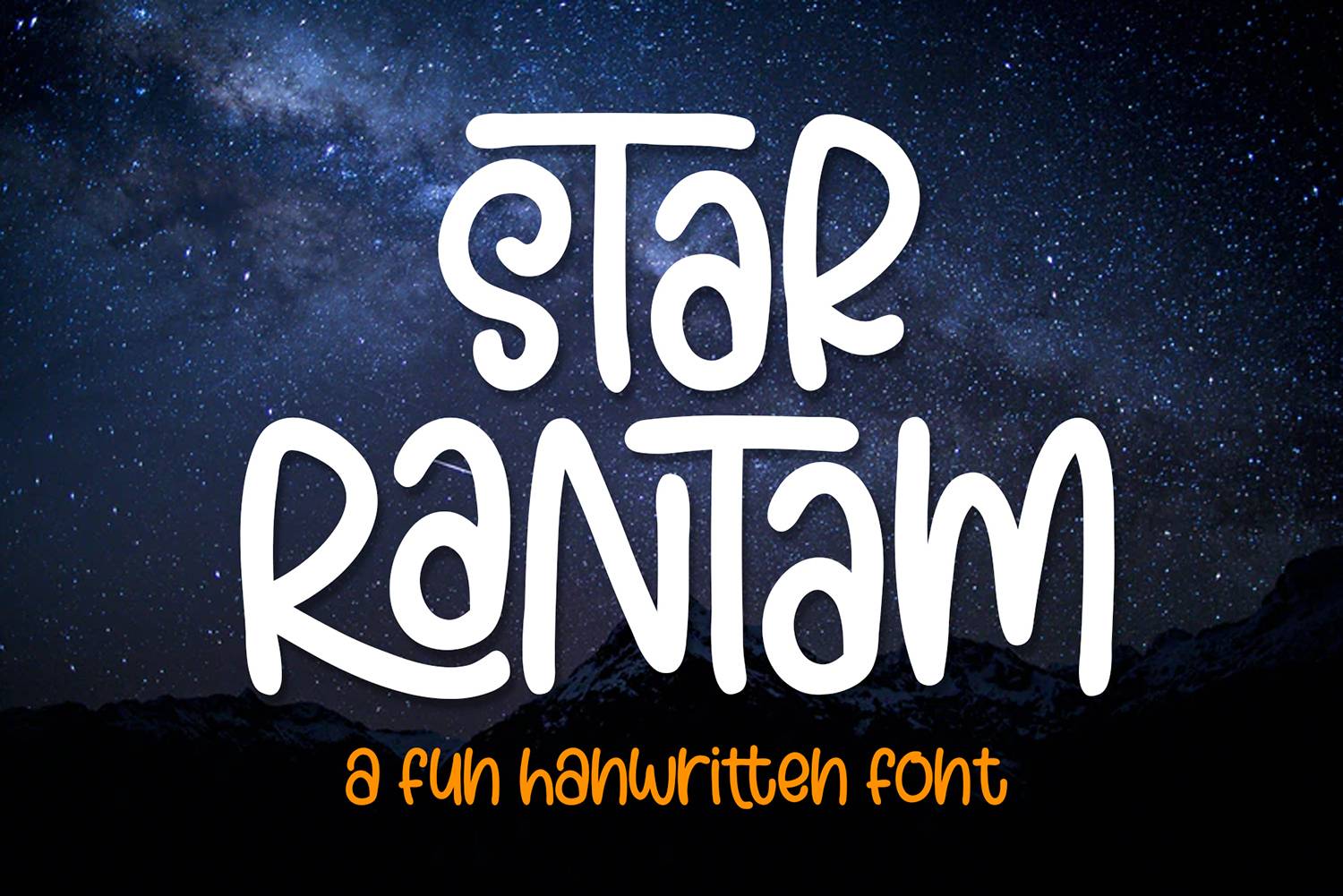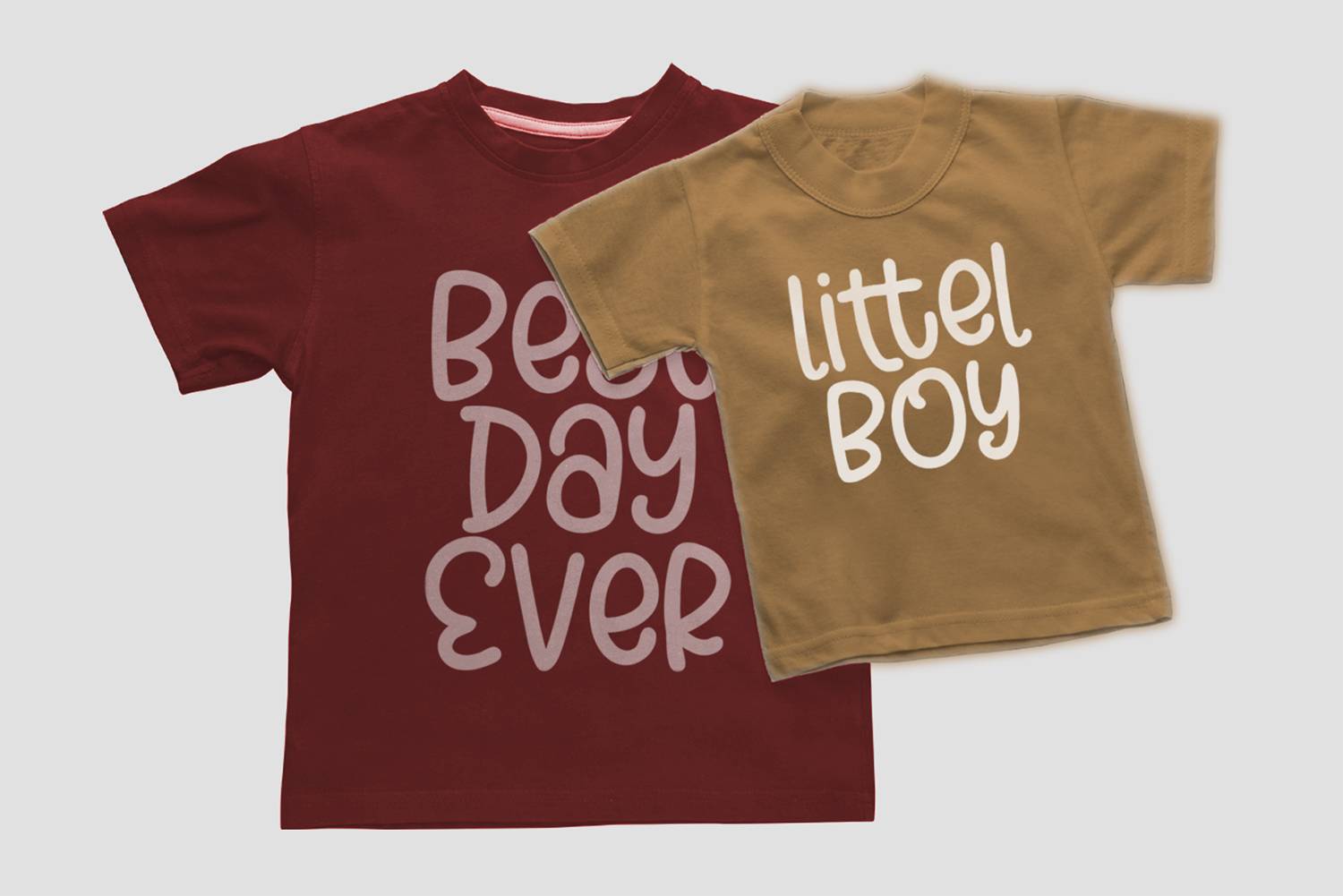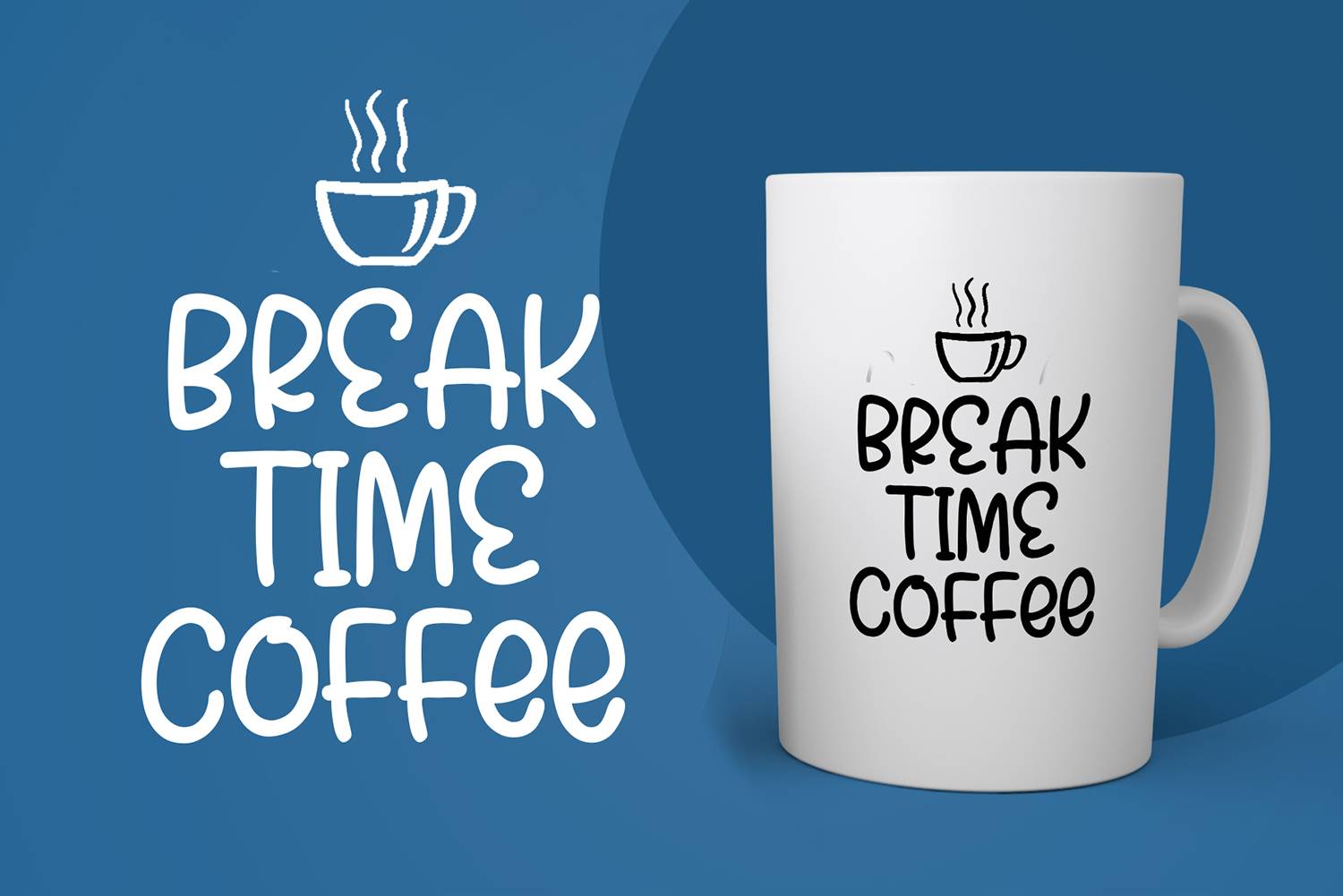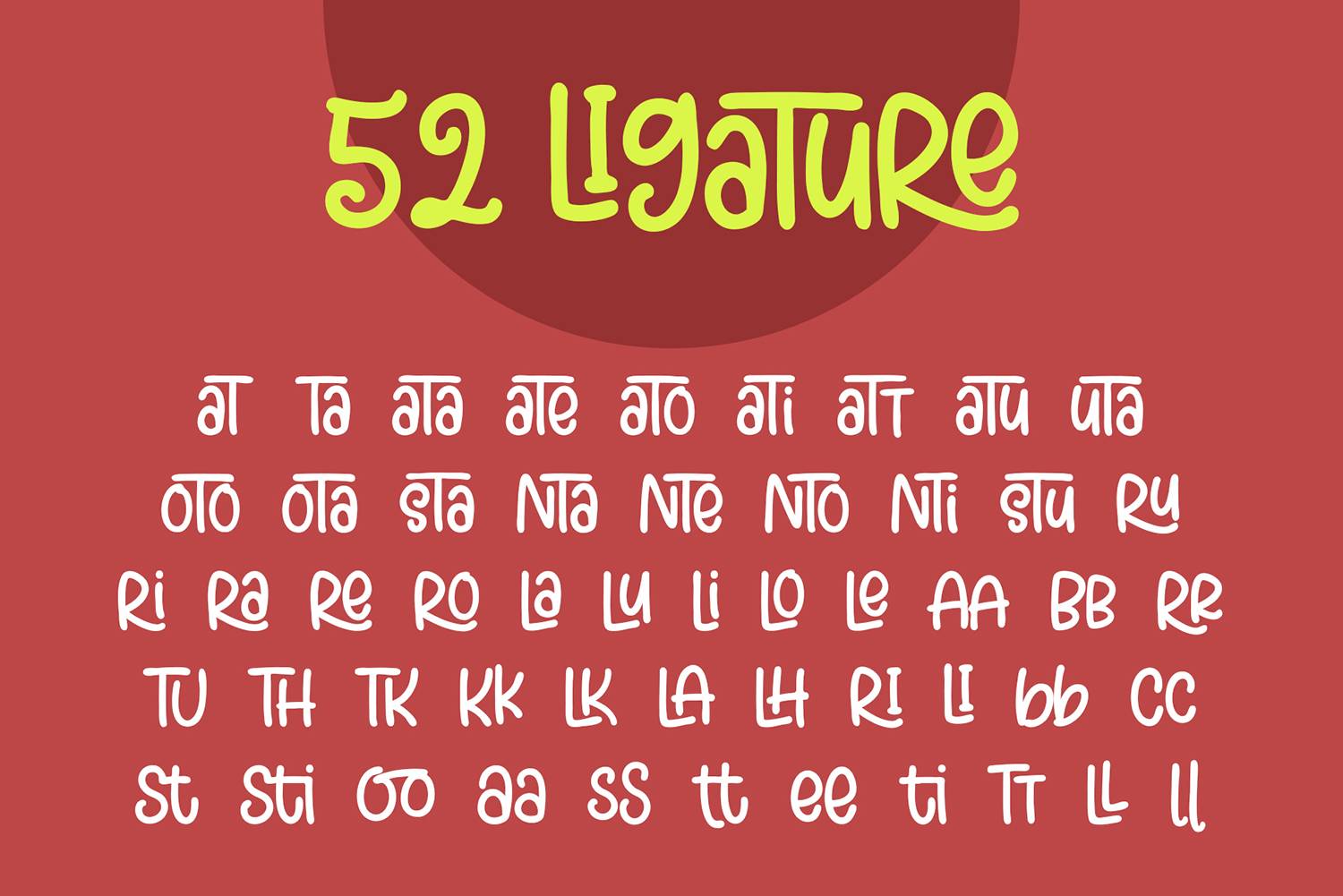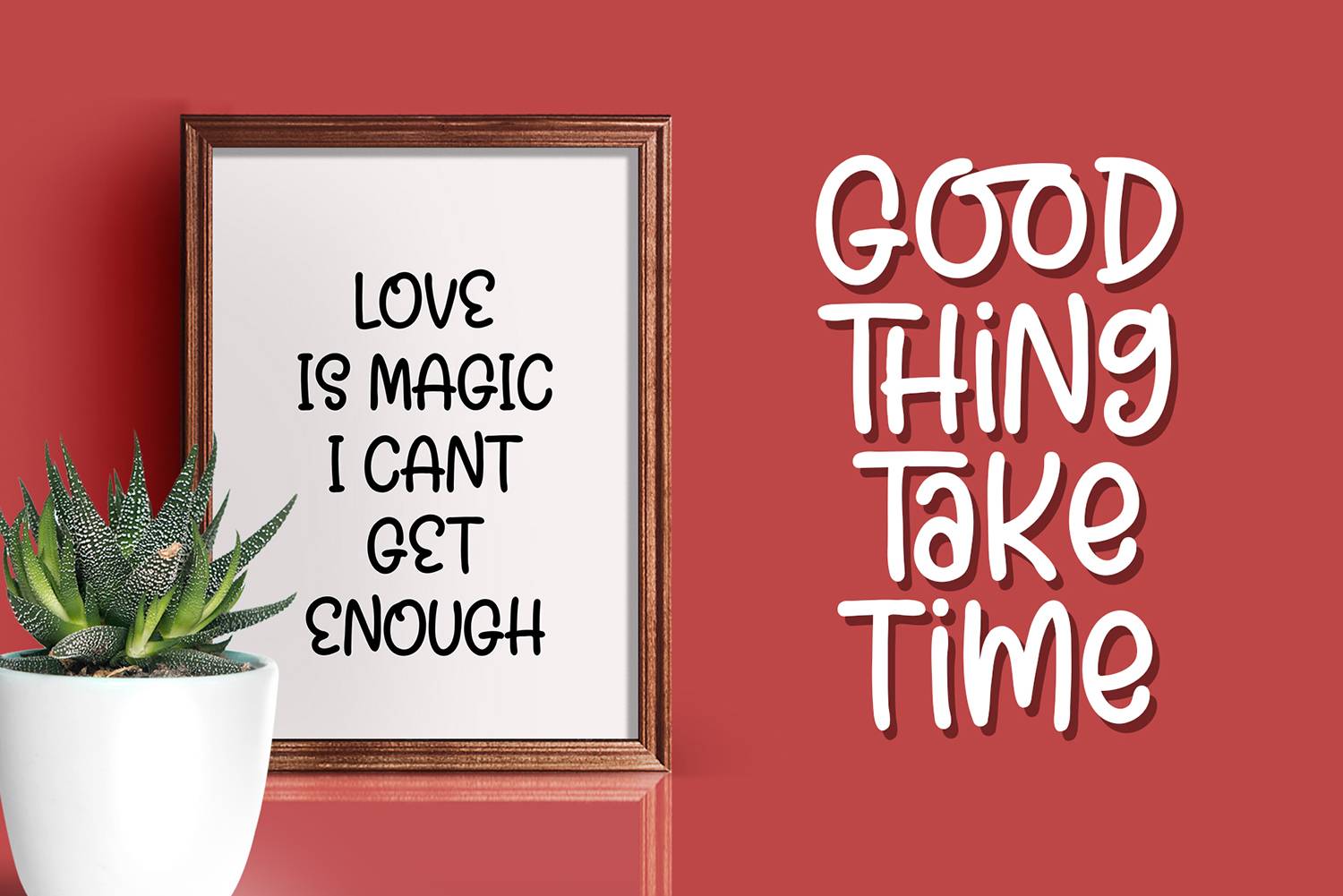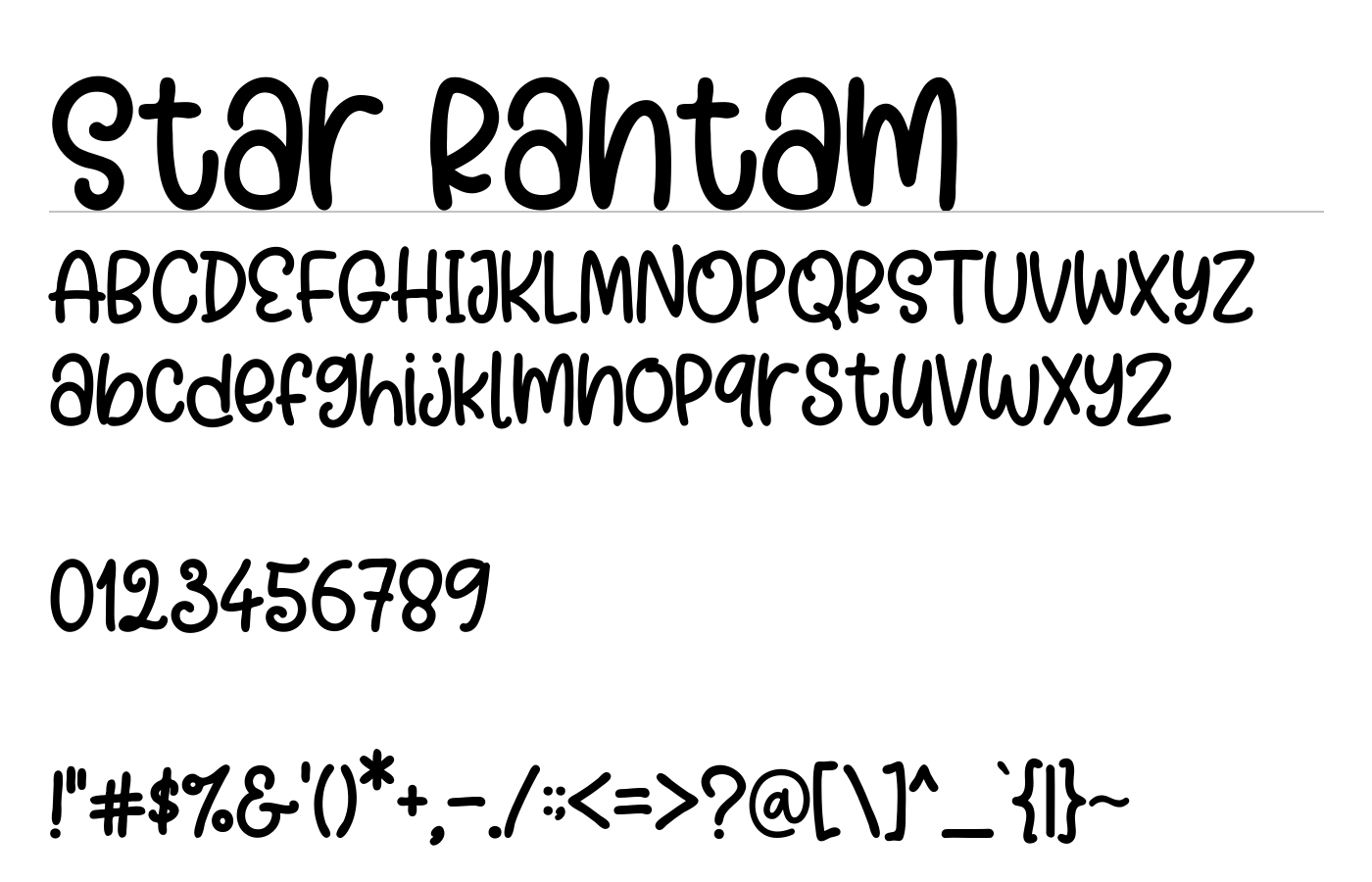
Star Rantam is a playful and casual handwritten sans serif font characterized by its rounded strokes and lively letterforms. Its regular weight and moderate x-height make it approachable and easy to read, while the quirky shapes add personality, making it ideal for creative projects, informal branding, children’s books, and fun posters. This font brings a friendly, youthful energy that works well in designs aiming for a warm, personal touch.
Star Rantam Font
About Star Rantam Font
| Font family | Star Rantam Font |
| Designer | Beautype |